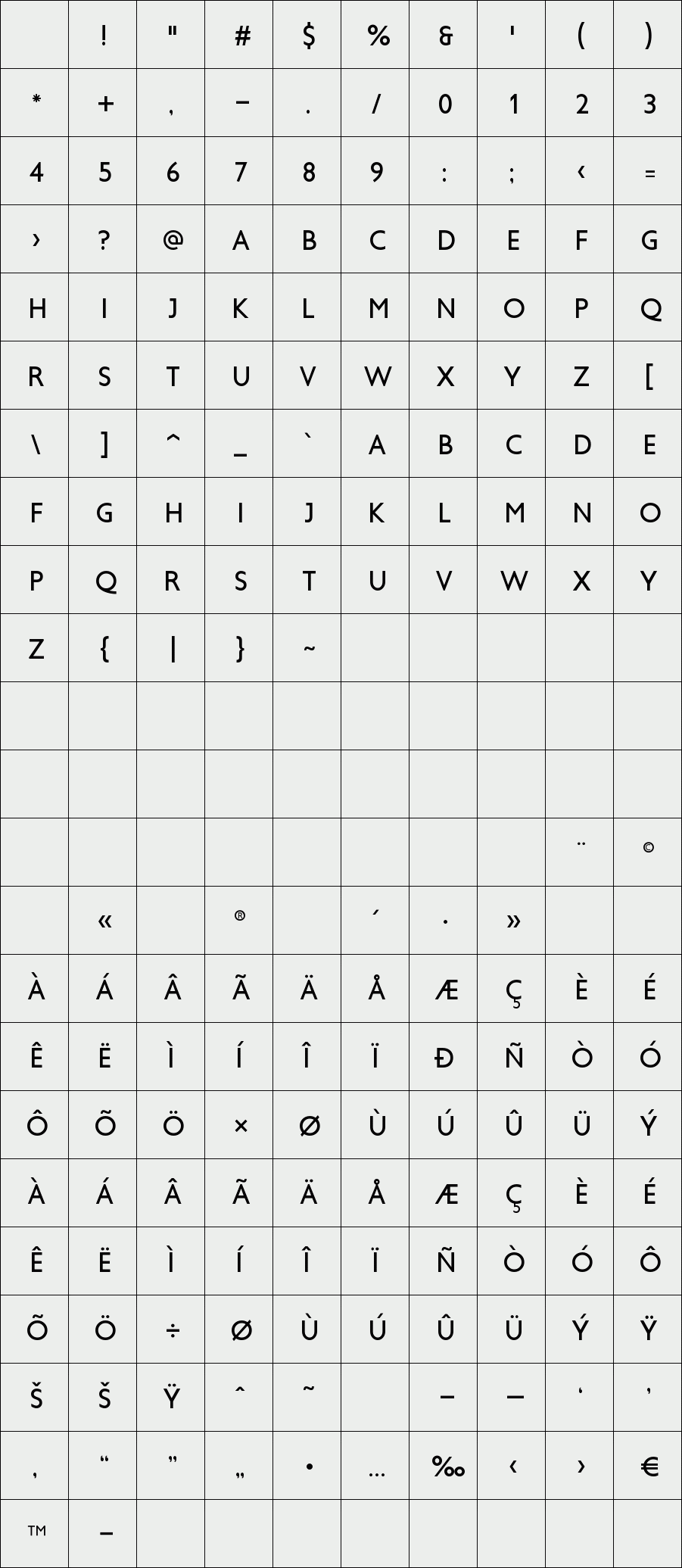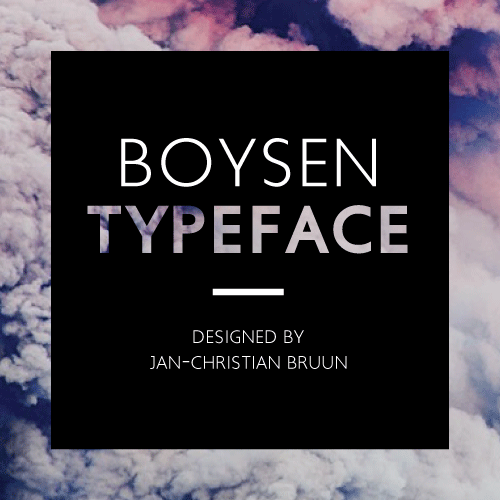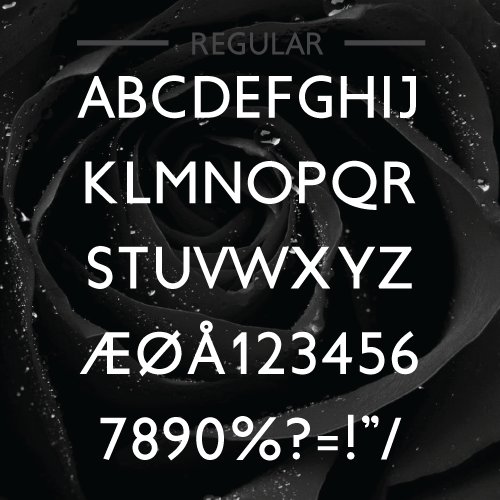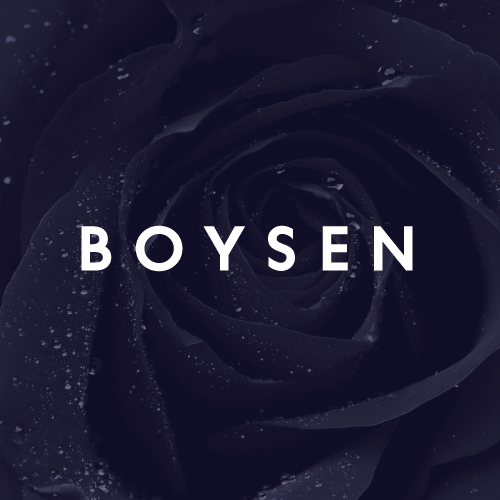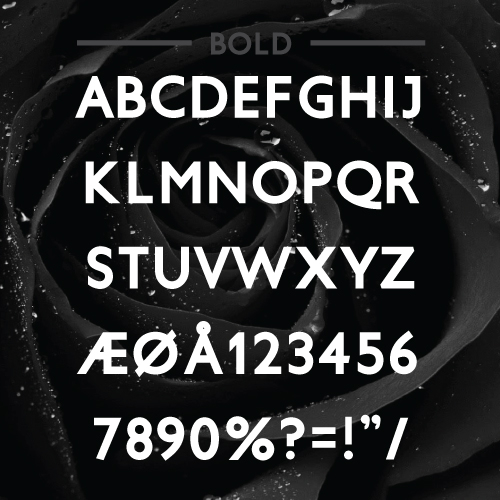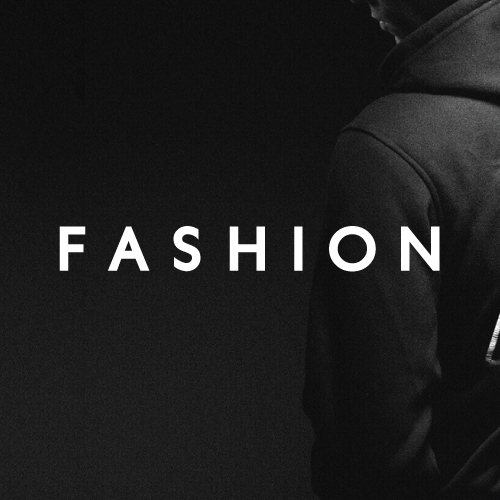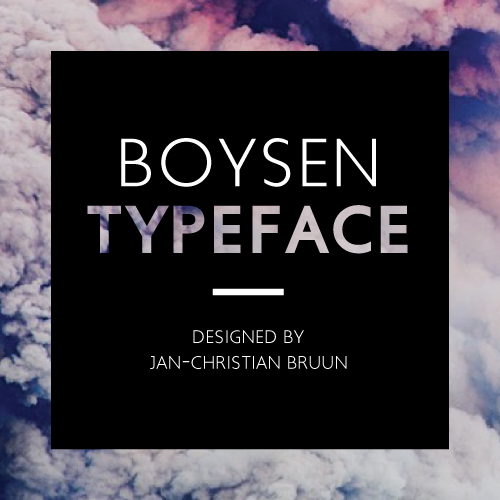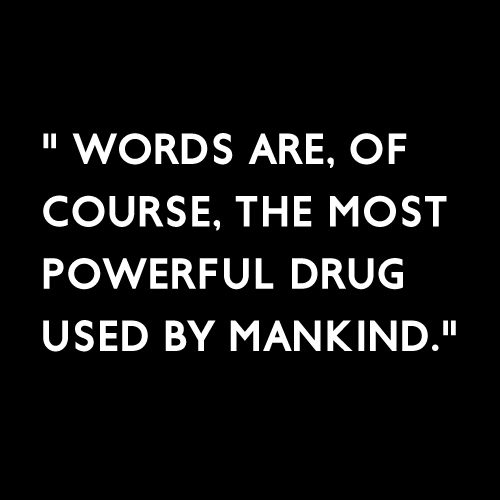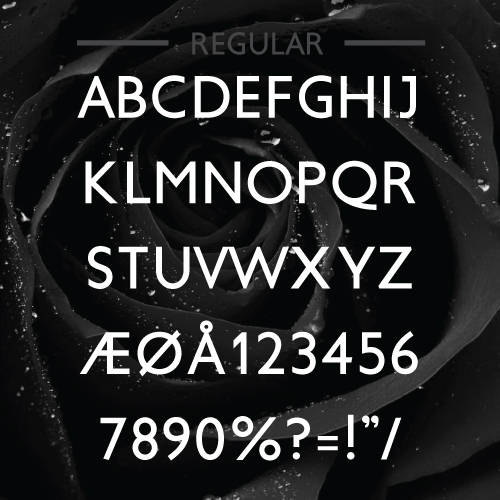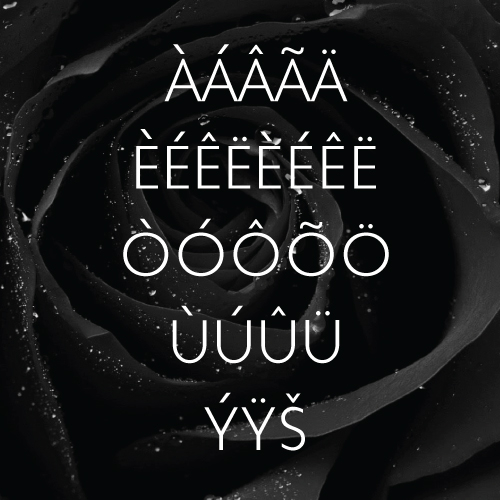
Boysen
/ Boysen Regular
Boysen is an uppercase typeface in three weights. It has a modern high class attitude inspired by luxury fashion. This type is only in large type.
It has been inspired by various advertisements from clothing brands. I chose to focus only on the big characters, rather than the small ones.
Designer: Jan-Christian Bruun